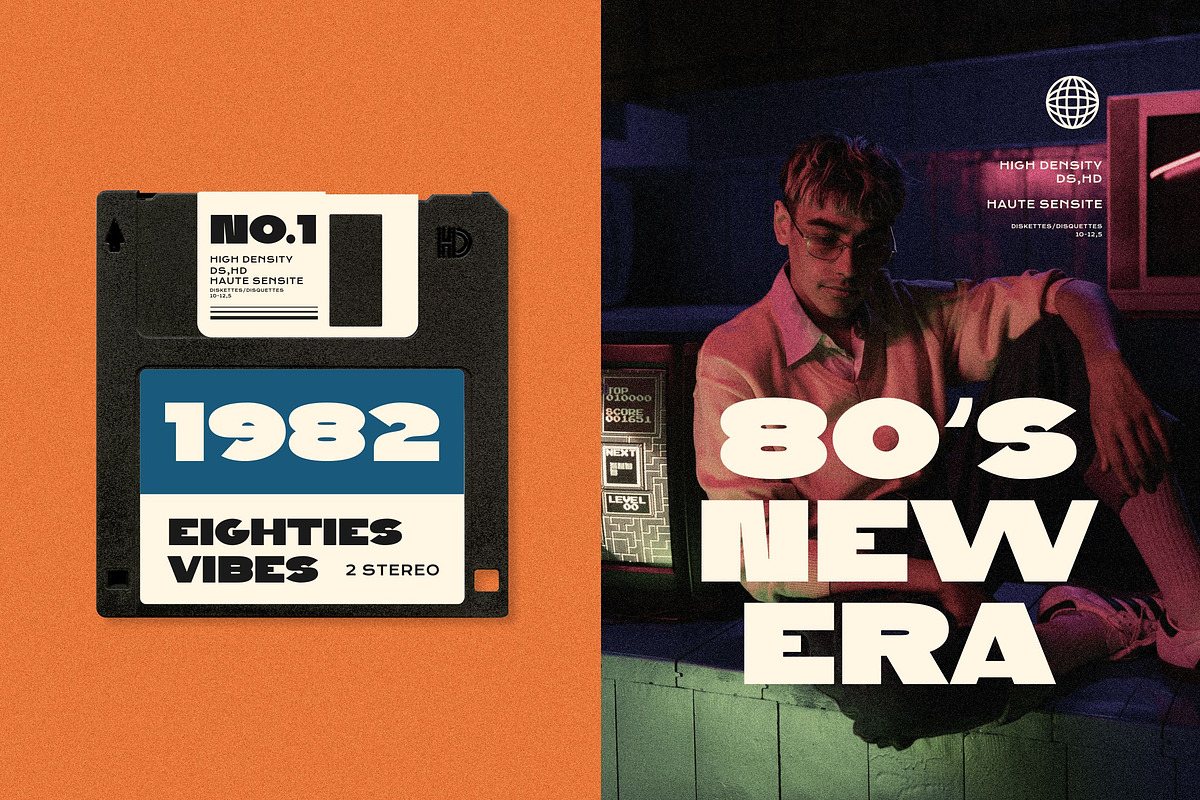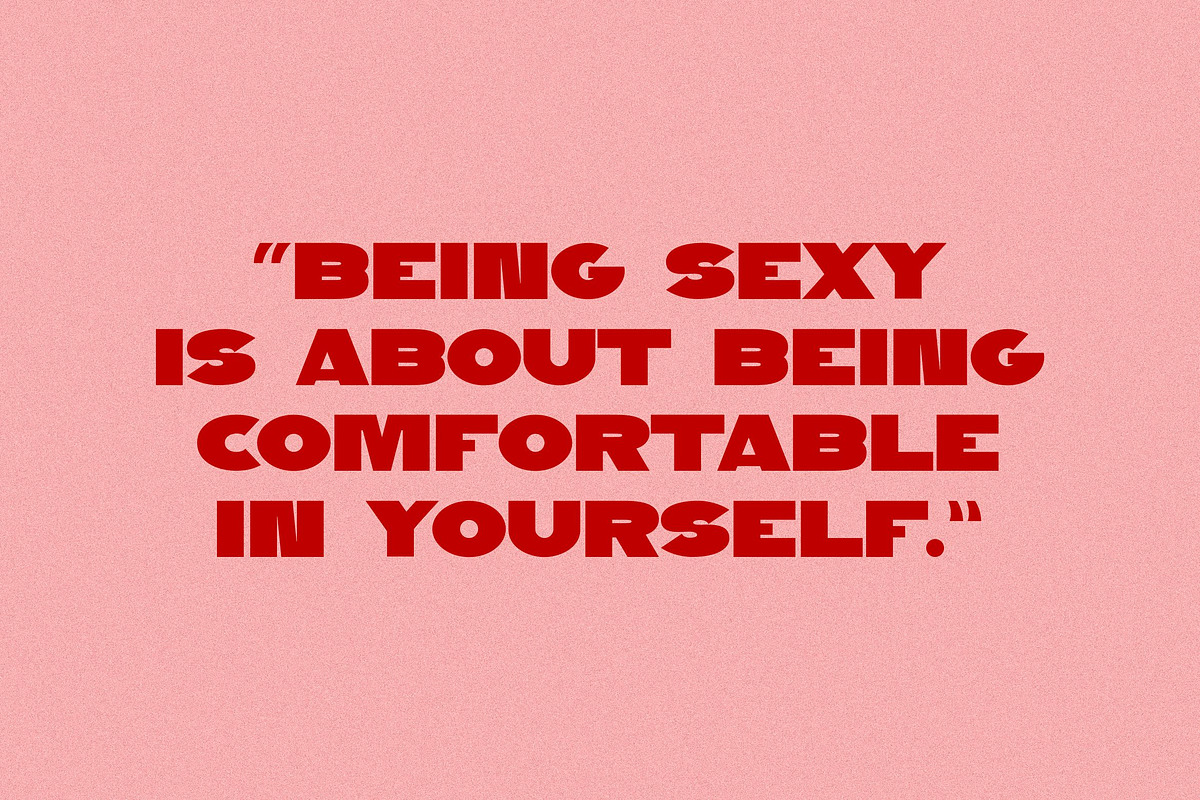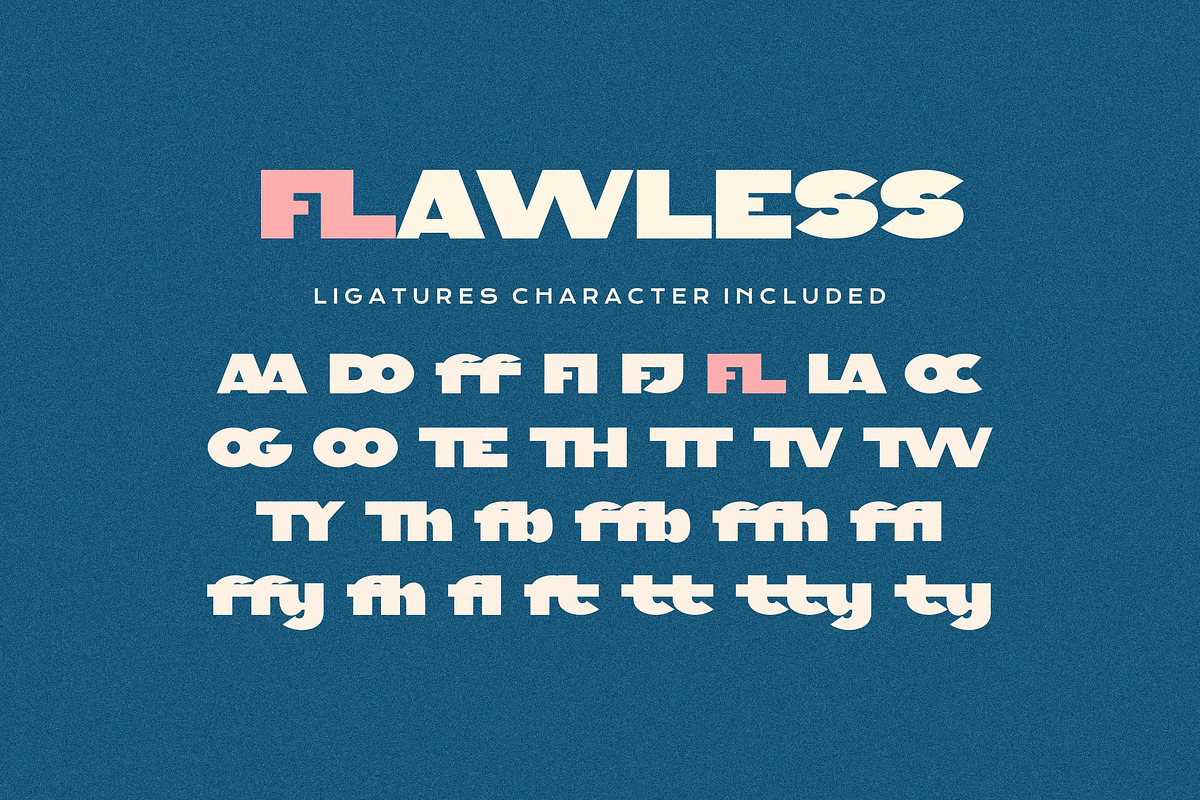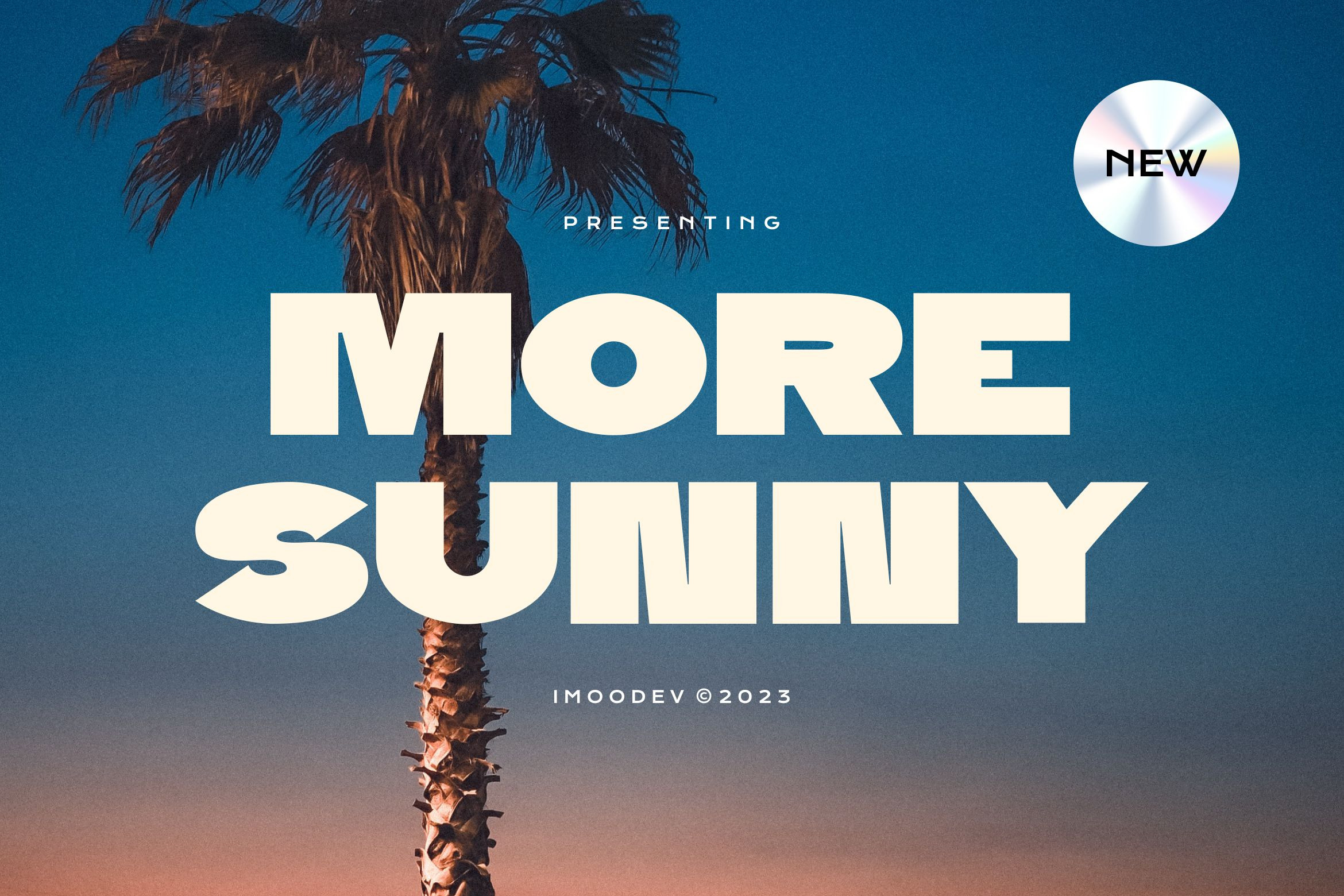
More Sunny - Chunky Display Font
More Sunny is a chunky display font with a distinctly retro flair. Each character is wide and robust for maximum visibility, while the rounded curves and dramatic geometric shapes channel the energy of the 1970s and 1980s, making this font truly fun.
It's perfect for headlines, signage, billboards, packaging, posters, and branding, especially for snack foods, kids' products, or creative agencies. Its "chubby" appearance gives it a friendly personality, while its strong structure keeps it impactful and readable even at large sizes.
Punctuation, Number, and Symbol
Opentype Features